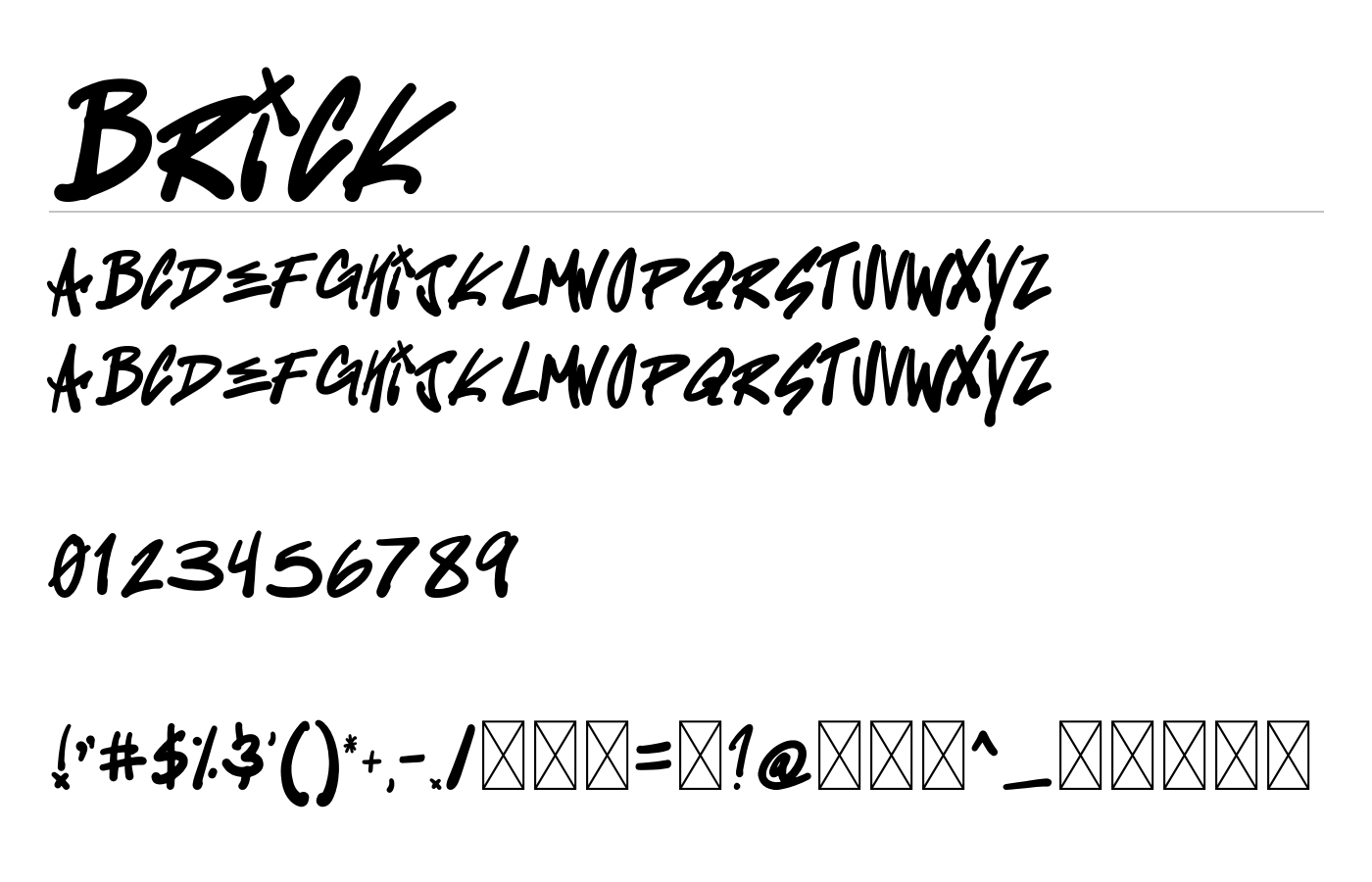
Brick Font is a bold, energetic handwritten script with a casual, urban vibe. Its rough, brush-style strokes and dynamic letter shapes make it ideal for creative projects, streetwear branding, and eye-catching headlines. This font brings personality and a sense of movement, perfect for designs seeking an informal, expressive look.
Brick Font
About Brick Font